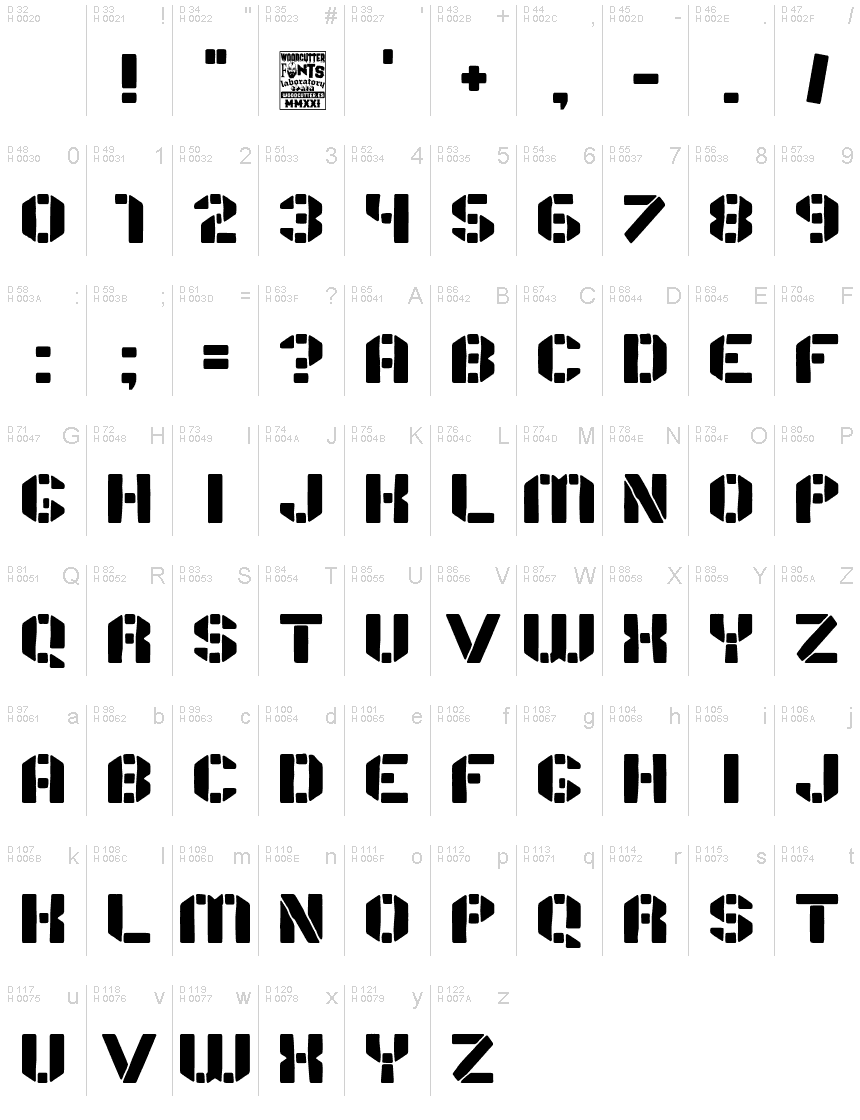
Stencil Paper
Woodcutter's Stencil Paper font is a bold and distinctive display typeface, perfect for projects requiring a military-inspired aesthetic. Its stencil style adds a touch of ruggedness, while the semi-expanded width enhances legibility and readability.
This font is an excellent choice for impactful headlines, posters, and logos that demand attention. Whether you're designing for a war-themed video game or creating striking promotional materials for an adventurous outdoor brand, Stencil Paper will bring an authoritative and powerful presence to your project.